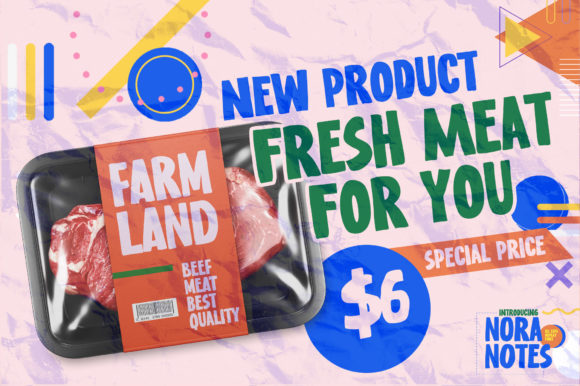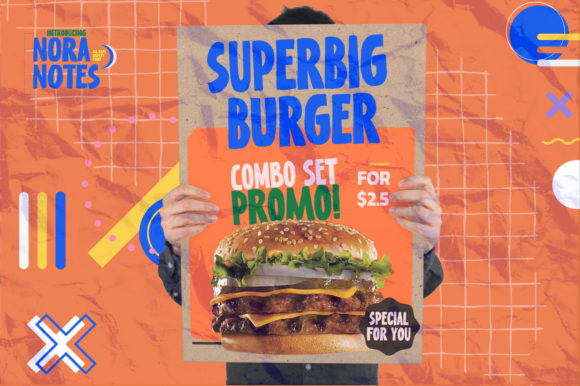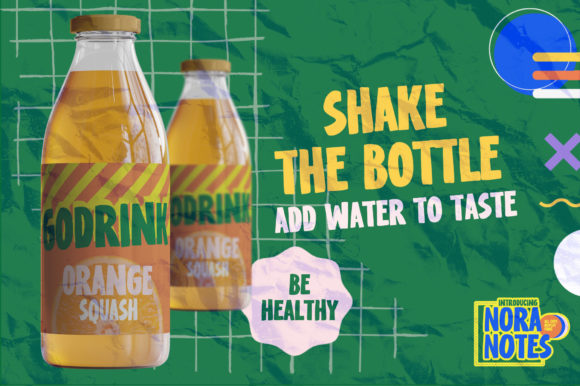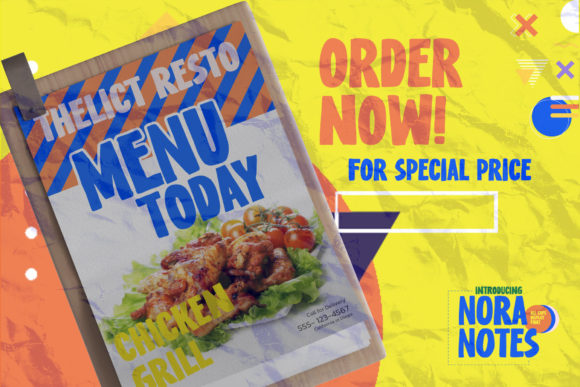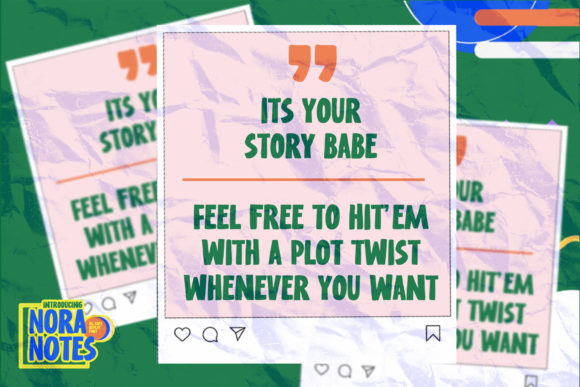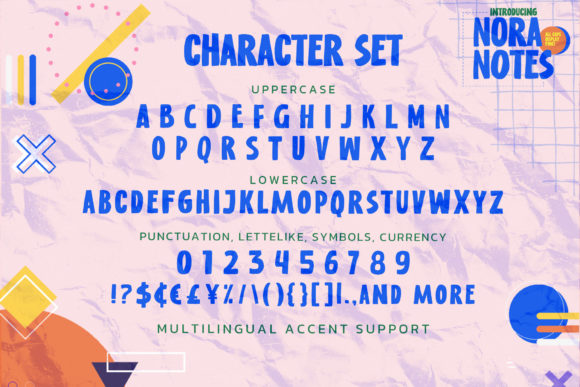
Introduction to Nora Notes Font
Have you ever found yourself scrolling through social media, suddenly struck by a burst of creativity? Maybe it’s a colorful illustration, a clever quote, or a beautifully designed logo that sparks your imagination. For me, it’s often a font that catches my eye and makes me want to create something new.
I recently stumbled upon the Nora Notes Font, and I just couldn’t get enough of its chunky, playful letters. This cute and colorful display font is a design resource that can instantly elevate your creative project. Whether you’re working on a personal or professional project, the Nora Notes Font is sure to add a touch of whimsy and personality to your designs.
Nora Notes Font
- High-quality, hand-drawn design perfect for creative projects
- Transparent background, allowing for easy layering and customization
- Features a large character set, including uppercase and lowercase letters, numbers, and punctuation marks
- Designed with a unique, whimsical style, ideal for use in illustrations, quotes, and other design elements
Honest Review: Nora Notes Font
I recently had the chance to work with the Nora Notes Font, and I must say it’s a great addition to my design resources. This font is perfect for any creative project that requires a touch of elegance and sophistication.
What works well: ✨ The font comes in a variety of styles, making it easy to find the perfect fit for your project. The high quality of the font is immediately noticeable, and it’s a great choice for any designer looking to add some sophistication to their work.
- High-quality font with a variety of styles to choose from
- Perfect for creative projects that require elegance and sophistication
What doesn’t work well: ⚠️ One limitation of the Nora Notes Font is that it doesn’t come with a transparent background option. This can be a bit limiting when working with designs that require a transparent background.
Overall, I’m really impressed with the Nora Notes Font. It’s a high-quality design resource that’s perfect for any creative project. While it may have a few limitations, it’s definitely worth checking out.
Nora Notes Font
Introduction to Nora Notes Font
The Nora Notes Font is a high-quality design resource perfect for creative projects. With its unique style and transparent background, this font can elevate any design to the next level.
Common Use Cases for Nora Notes Font
The Nora Notes Font is perfect for creating eye-catching social media graphics, presentation slides, and documents. Its unique style and transparent background make it ideal for designers looking to add a touch of elegance to their work.
Tips for Getting the Most Out of Nora Notes Font
To get the most out of the Nora Notes Font, use it in conjunction with other design elements, such as images and graphics. Experiment with different font sizes and styles to create a unique look that suits your design needs.
Compared to Nora Notes Font, Open Sans is more versatile and widely used, making it a great alternative for designers who want a high-quality font that is easy to read.